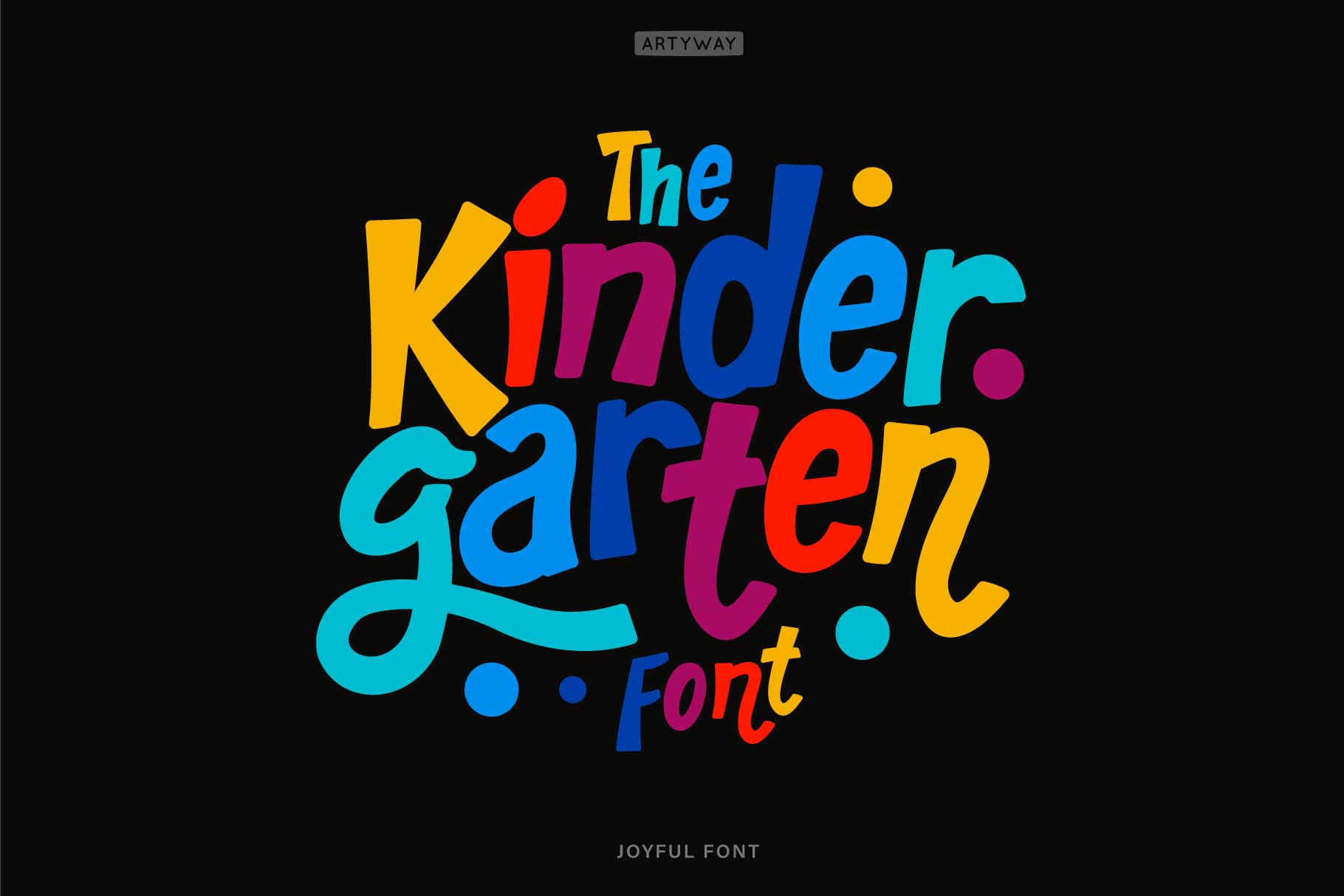
Kid Fun Font
Vibrant, lively color font with a Mexican fiesta flair for joyful, child-centric designs.
Celebrate the joy of childhood with this vibrant and colorful font. Perfect for creating a lively atmosphere in schools, kindergartens, and festive events.
The playful, funny design captures the essence of a child's world, making it ideal for projects that speak to the hearts of both kids and adults.
From birthday parties to school logos, this font adds a touch of joy to every design.